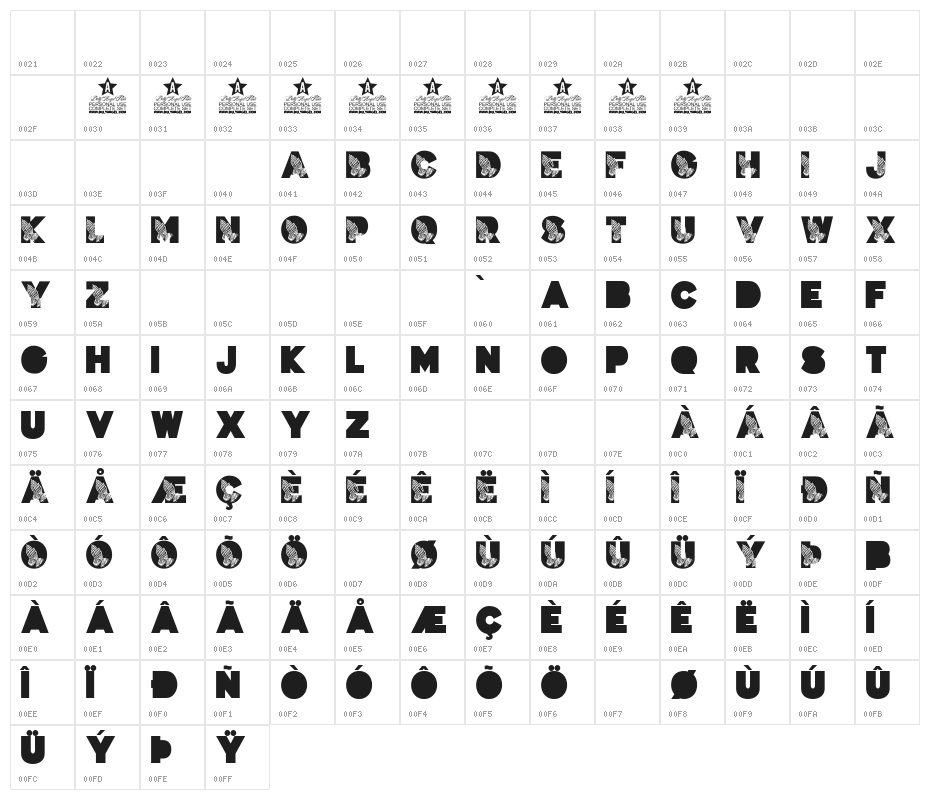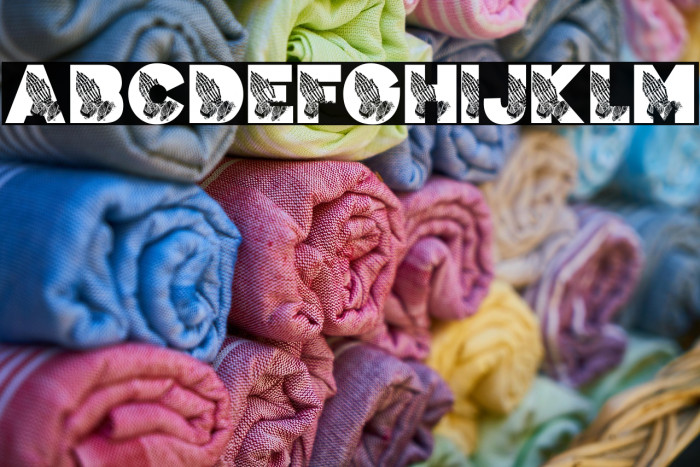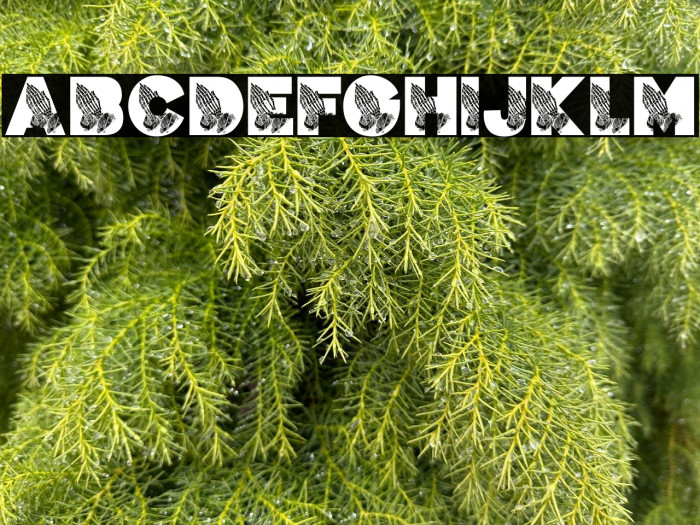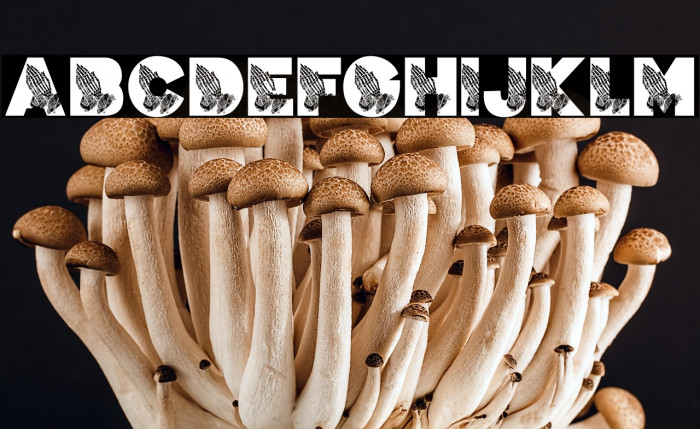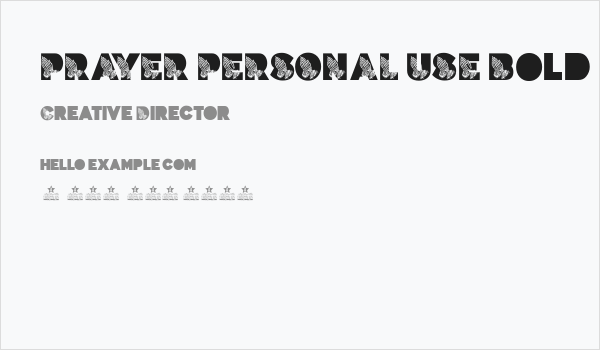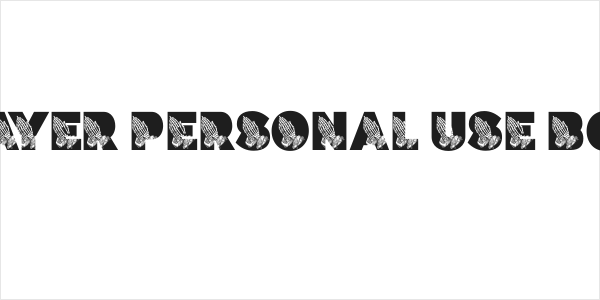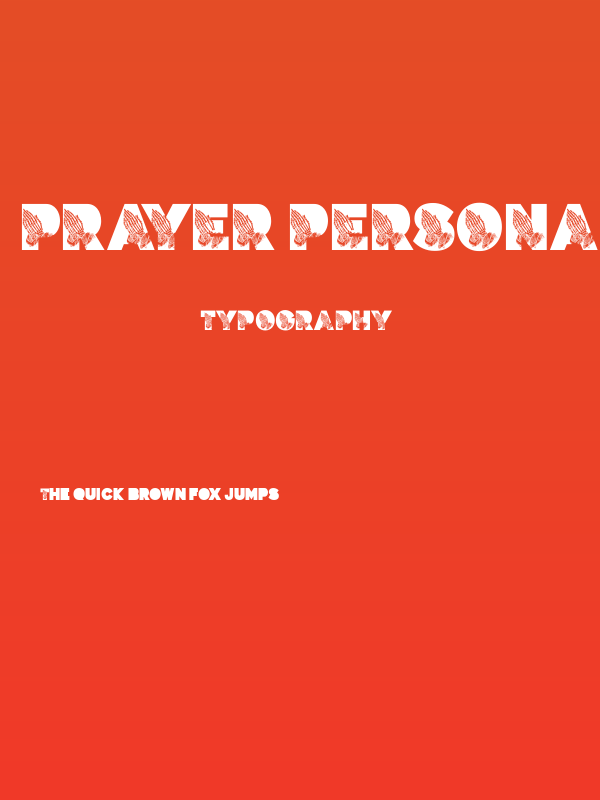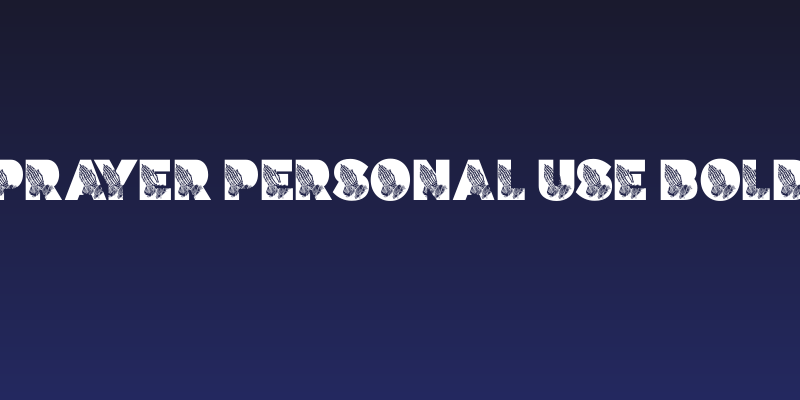
PRAYER PERSONAL USE Bold Font
PRAYER PERSONAL USE Bold Description
This bold, decorative font features uppercase letters with intricate designs inside each character, incorporating a pattern of praying hands. The letters are blocky and robust, providing a strong visual impact. The font is highly stylized, making it suitable for projects that require a unique and eye-catching typeface. Its boldness and decorative elements make it stand out, while the intricate details add a layer of complexity and interest.
| Proposed Projects | Ideal for religious-themed posters, event flyers, or any project needing a bold, decorative touch. |